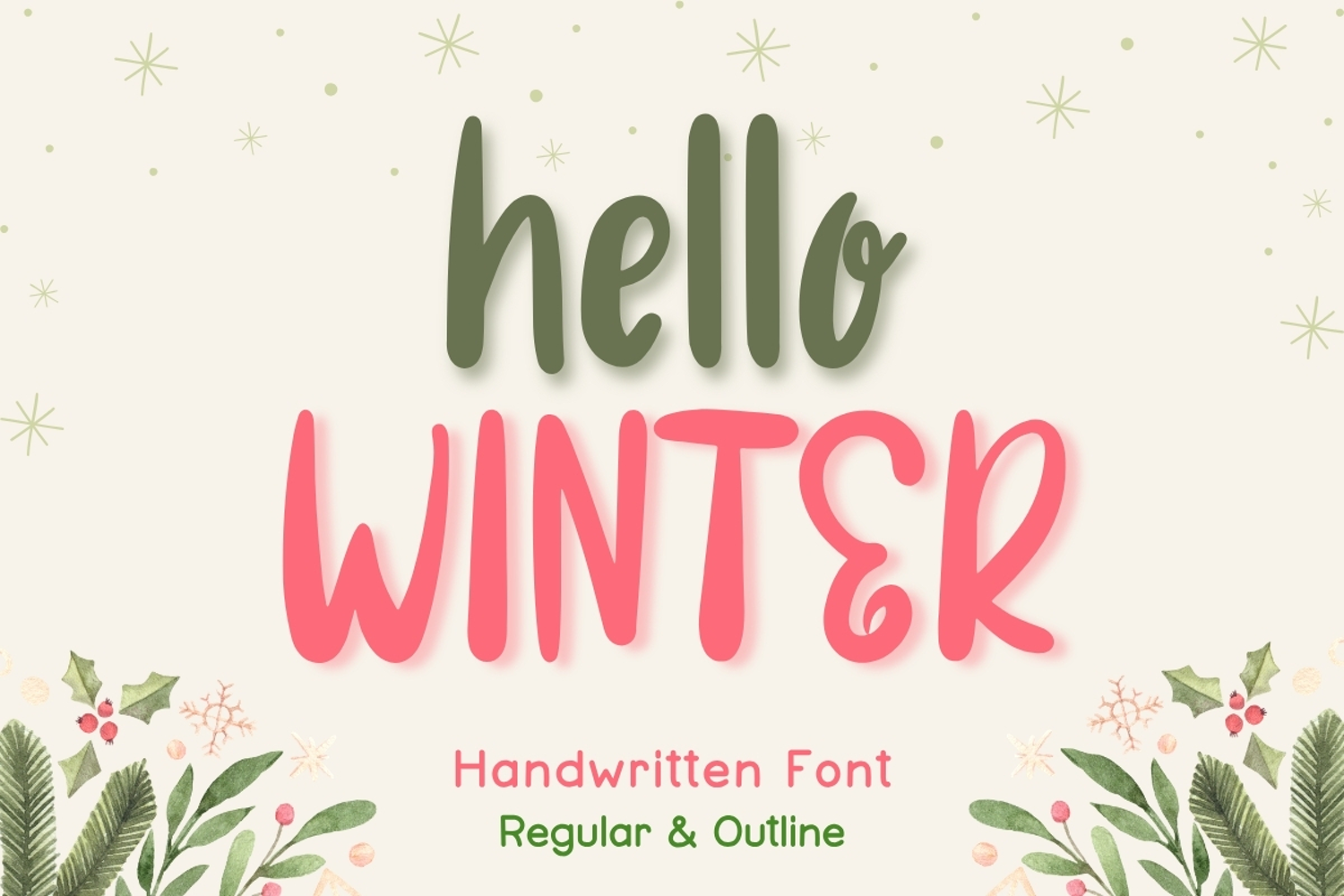
Hello Winter is a charming handwritten font duo featuring both Regular and Outline styles. With tall, playful letterforms, smooth handwritten strokes, and a cozy seasonal feel, this font is perfect for creating warm winter and holiday designs. The outline version adds extra versatility for layered text, coloring projects, and eye-catching typography.